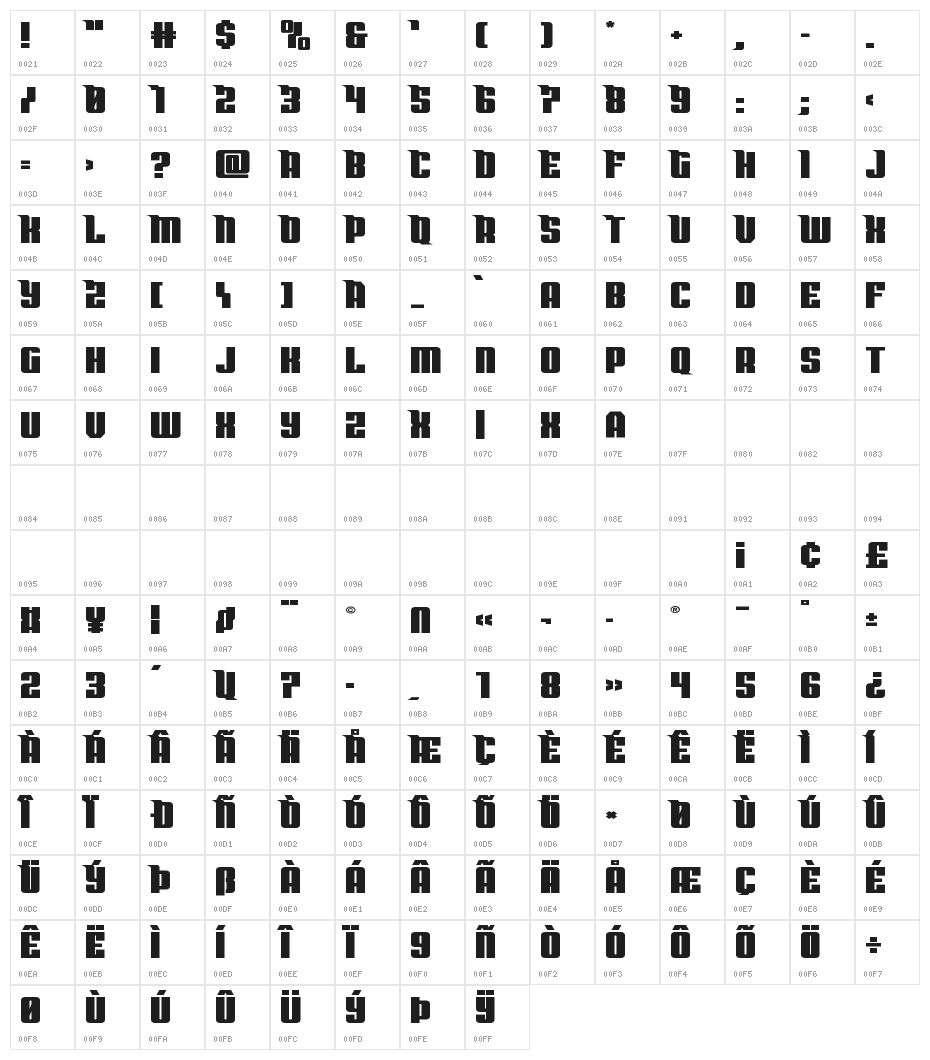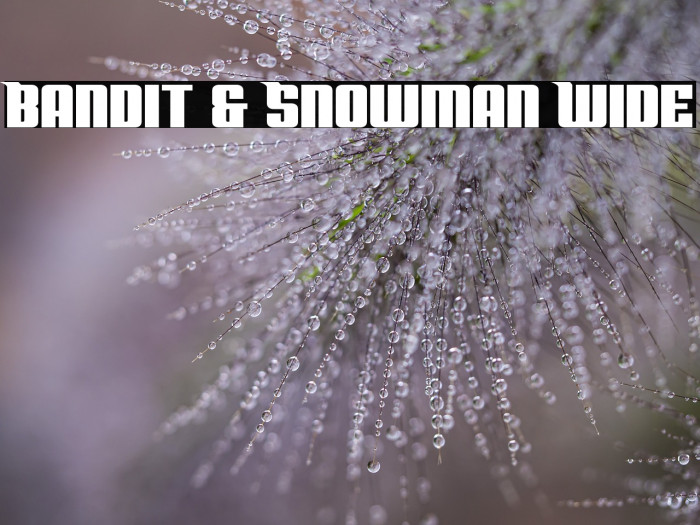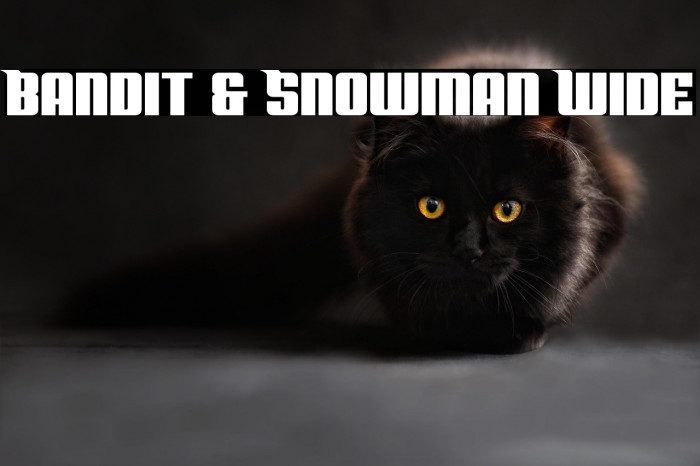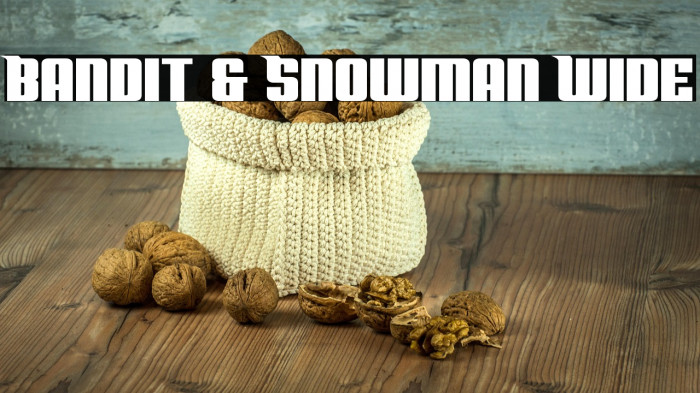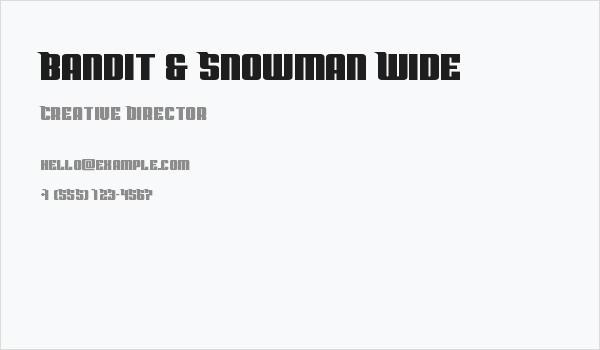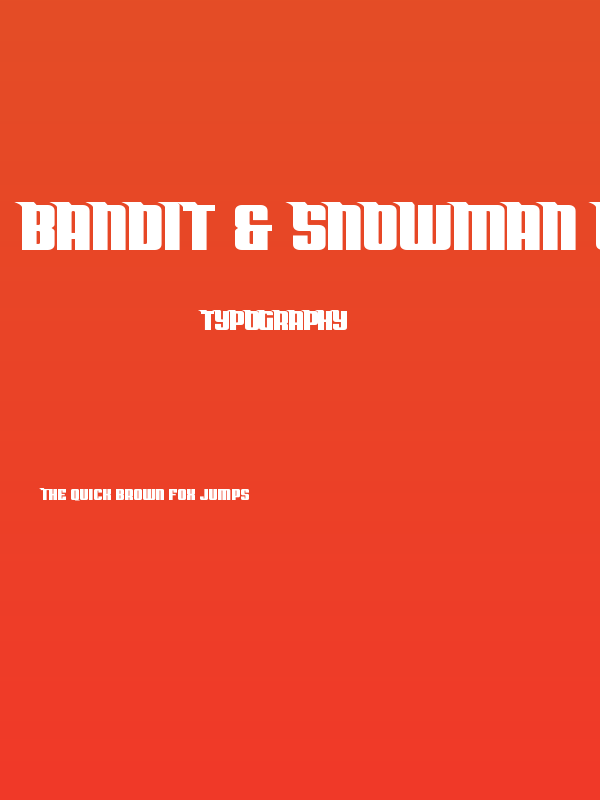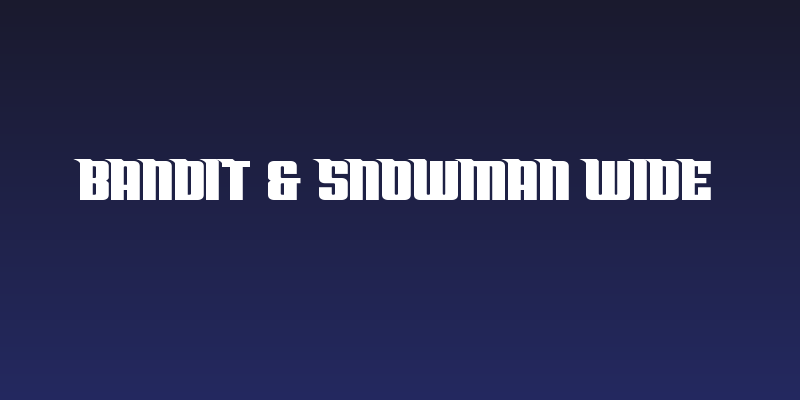
Bandit & Snowman Wide Font
Bandit & Snowman Wide Description
This font is a bold and striking display typeface characterized by its wide, blocky letterforms. The uppercase and lowercase letters share a consistent height, giving it a uniform appearance. The font features sharp, angular edges and a strong geometric structure, making it highly legible even at smaller sizes. The numbers and special characters maintain the same boldness and width, ensuring a cohesive look across all text. Its unique style makes it ideal for attention-grabbing headlines and impactful designs.
| Proposed Projects | Ideal for posters, logos, branding, and any project requiring a strong visual impact. |